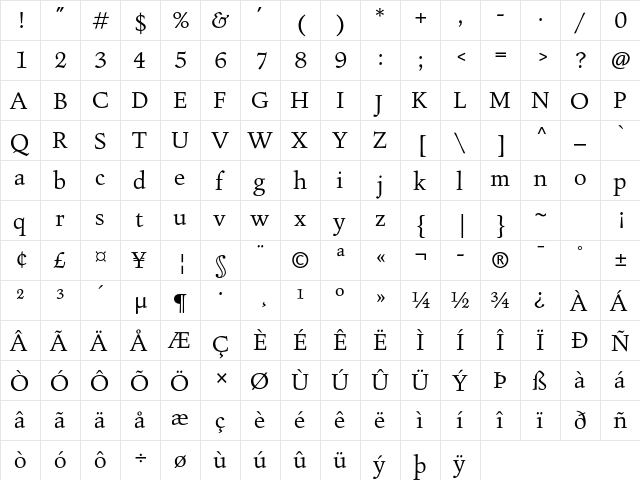
Figural Std Book
| Designer | Michael Gills |
Design Context for Figural Std Typeface
Figural Std offers clean, dependable letterforms without strong stylistic allegiance, making it a practical choice for designers who need flexibility.